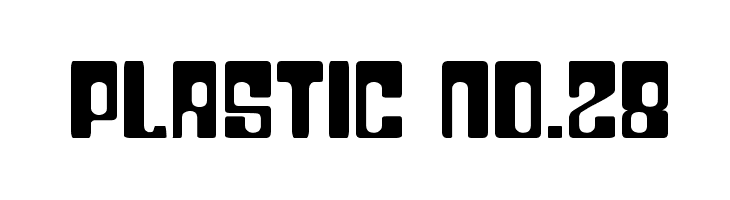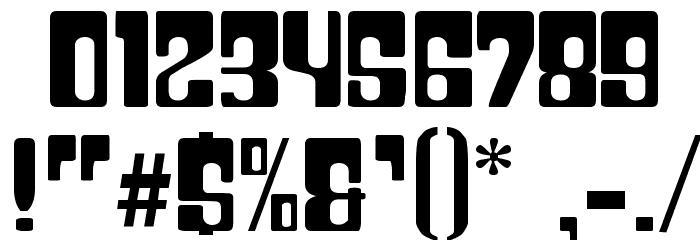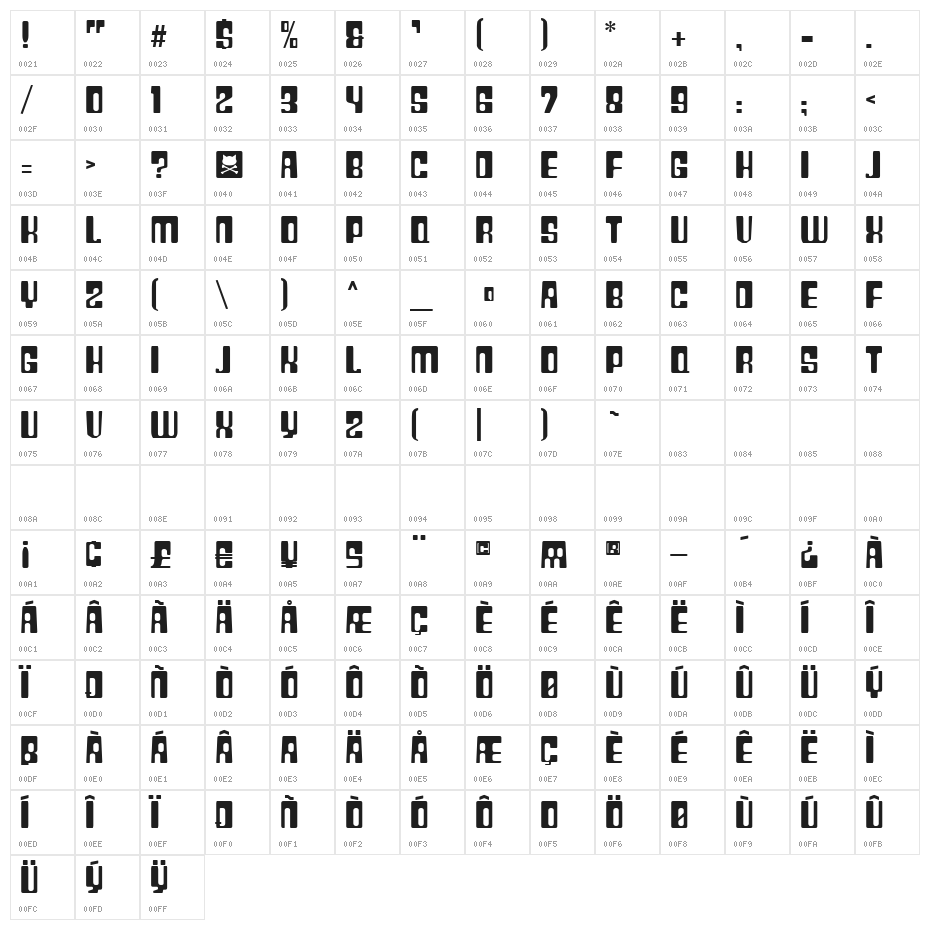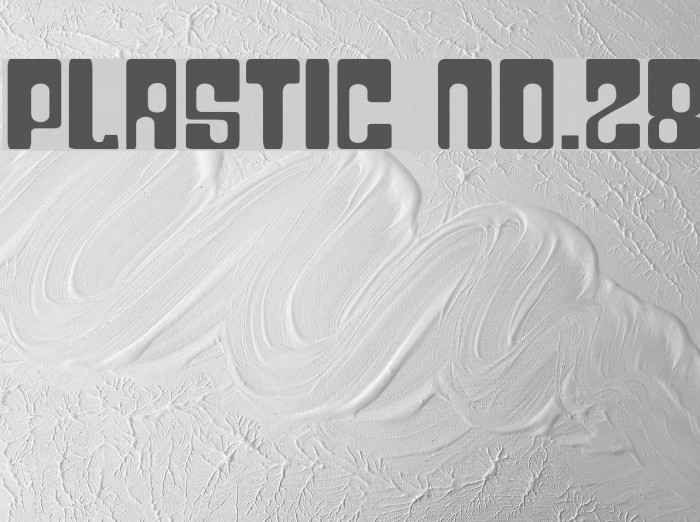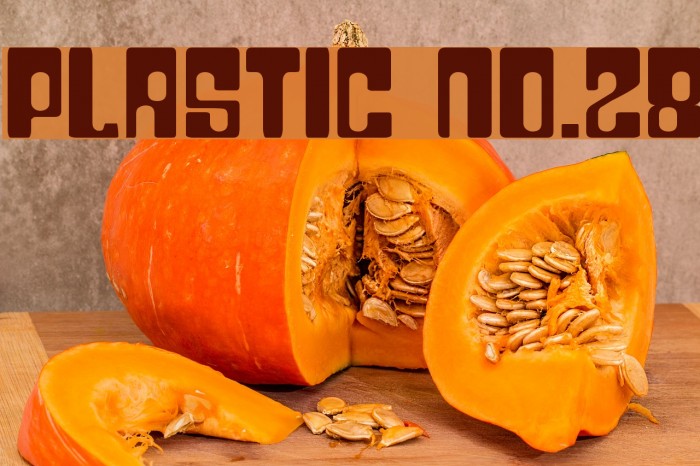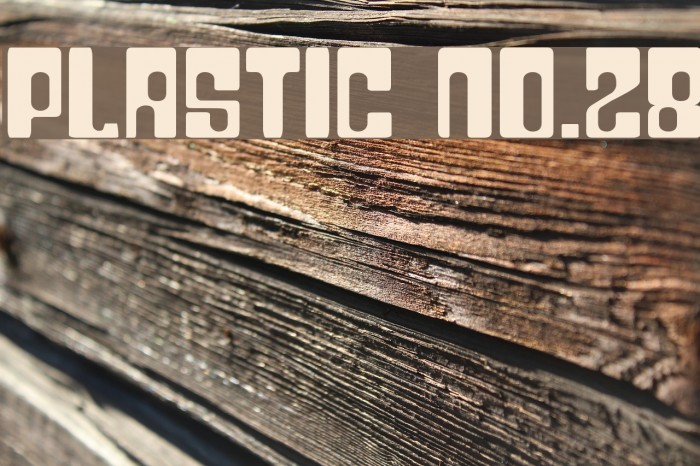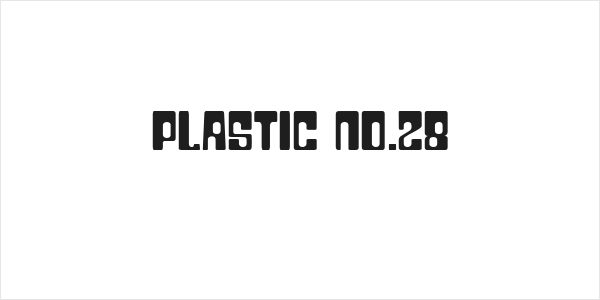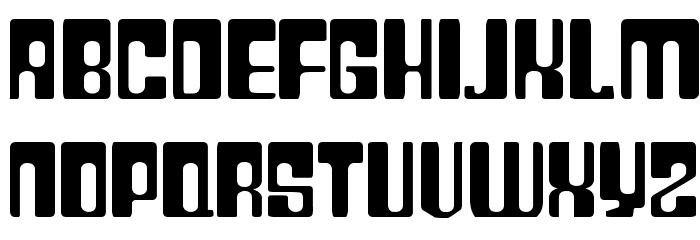
Plastic No.28 Font
Plastic No.28 Description
This font features a bold and blocky design with a distinctly modern and industrial aesthetic. The characters are uniformly thick, with minimal contrast in stroke width, giving them a strong and impactful presence. The edges are rounded, adding a touch of softness to the otherwise robust appearance. The font maintains a consistent height across all characters, ensuring a cohesive look. The spacing between characters is tight, which enhances the compact and solid feel of the text. This style is particularly effective for creating attention-grabbing headlines or logos that require a bold statement.